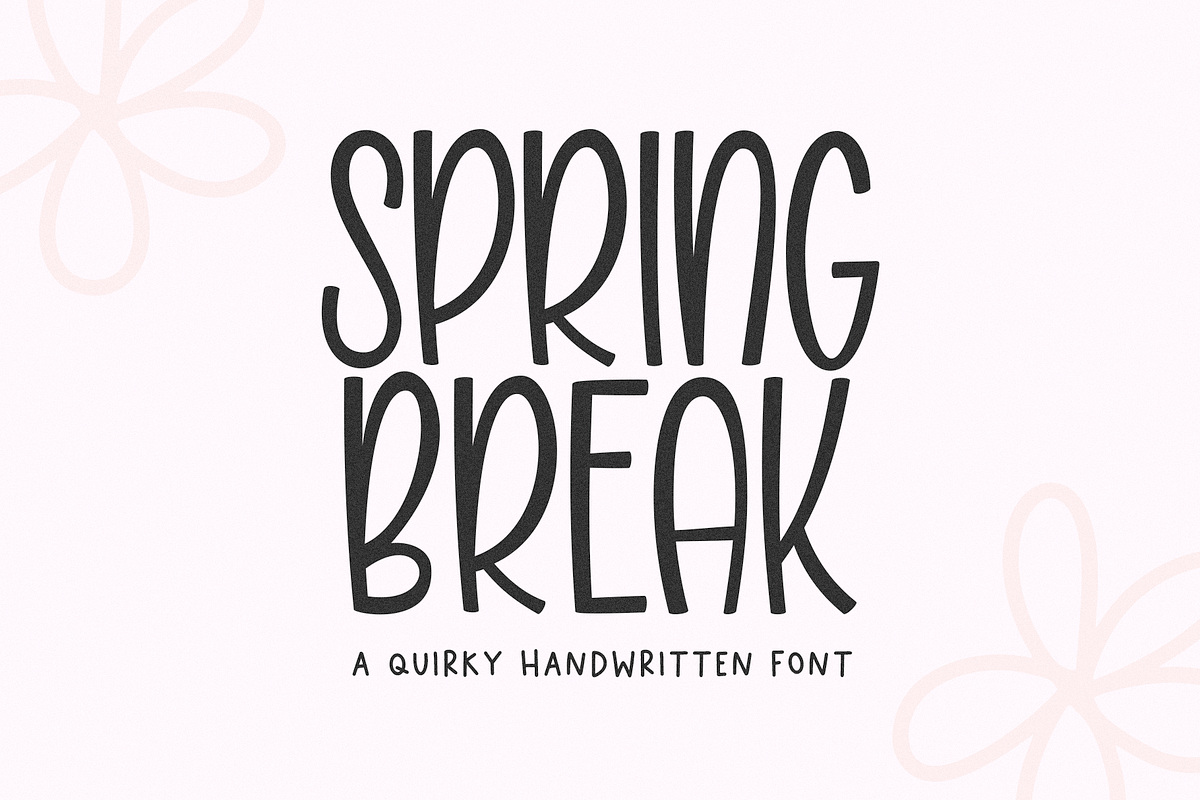
The Spring Break | Quirky Font Free Download is a fun and playful typeface that adds a lighthearted, creative touch to any design. Perfect for casual branding, social media posts, event invitations, and personal projects, this font brings a unique, whimsical style that stands out. Please note, for commercial use, a license must be purchased. You can download it for free for testing purposes.
With its quirky, uneven lines and cheerful design, the Spring Break | Quirky Font Free Download is ideal for projects that need a carefree, fun vibe. Whether you’re designing for a party, creating fun promotional content, or working on custom graphics, this font will add personality and charm to your work.